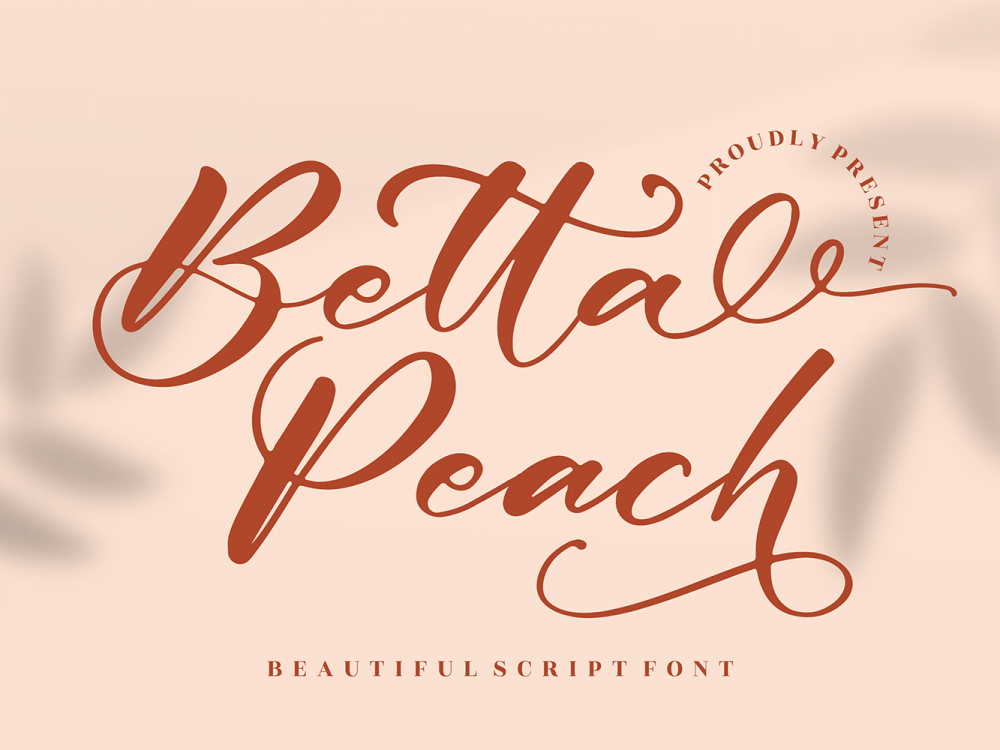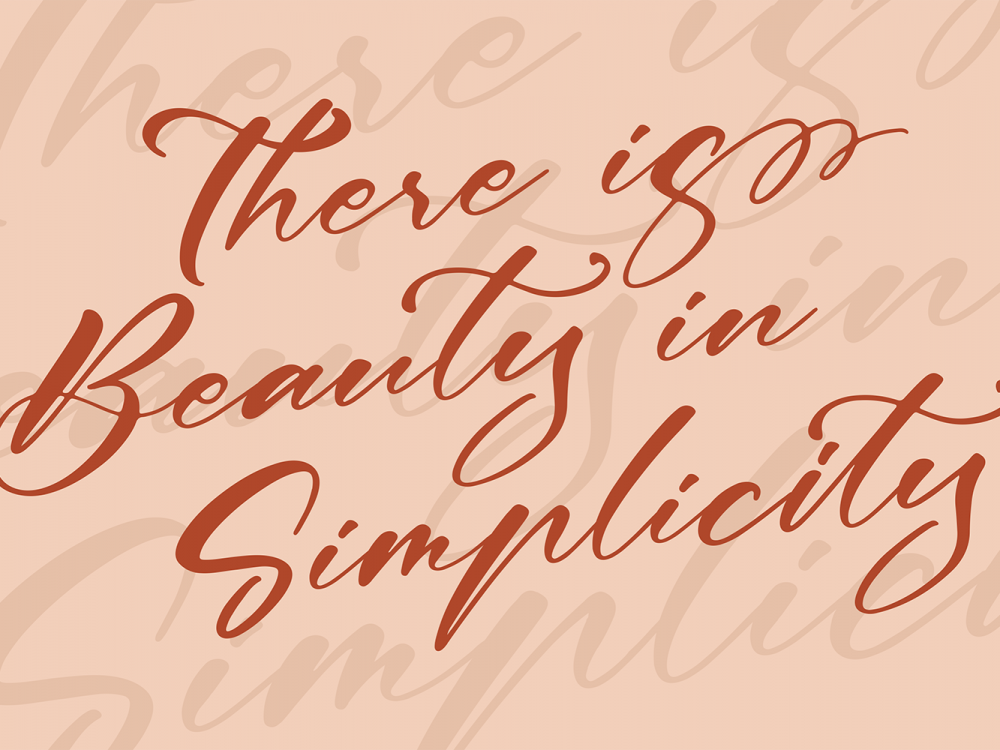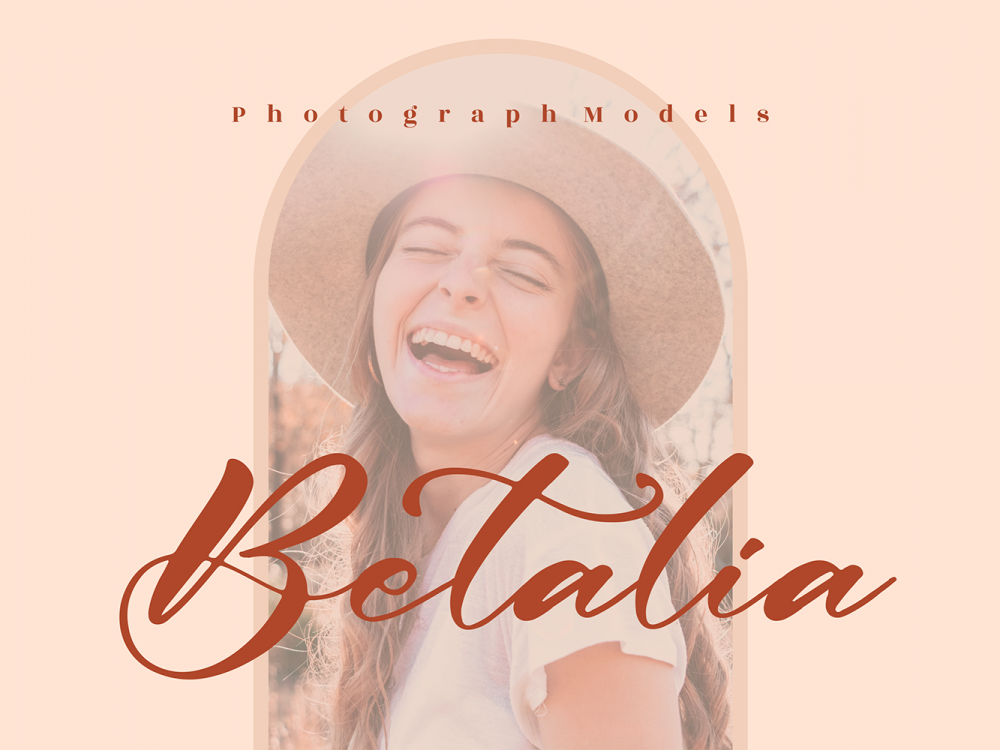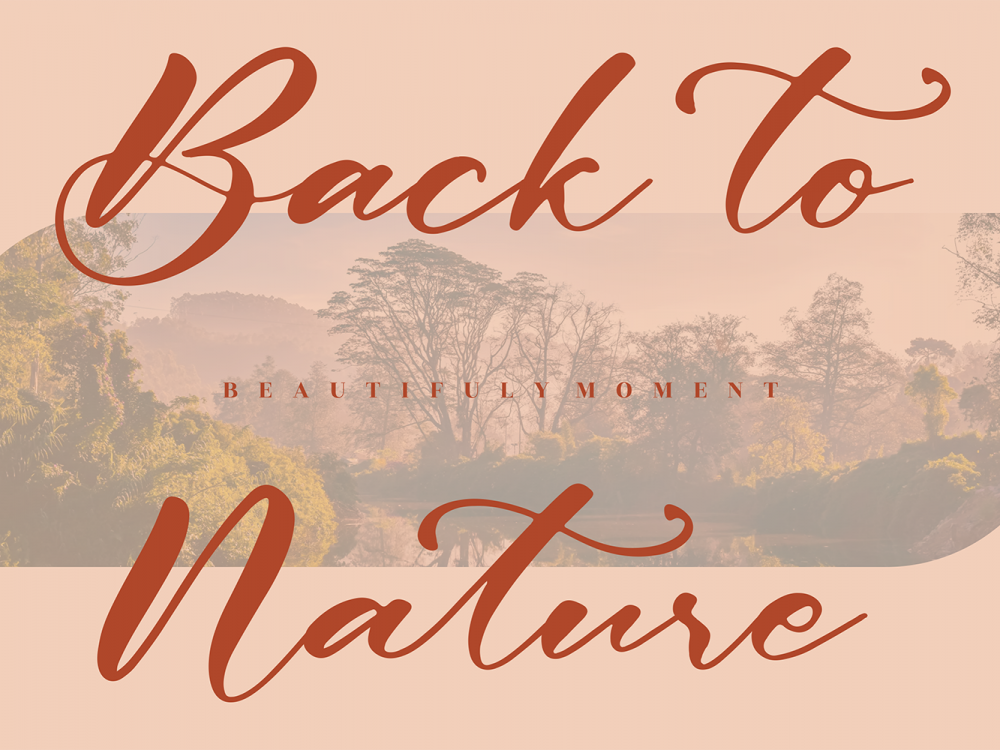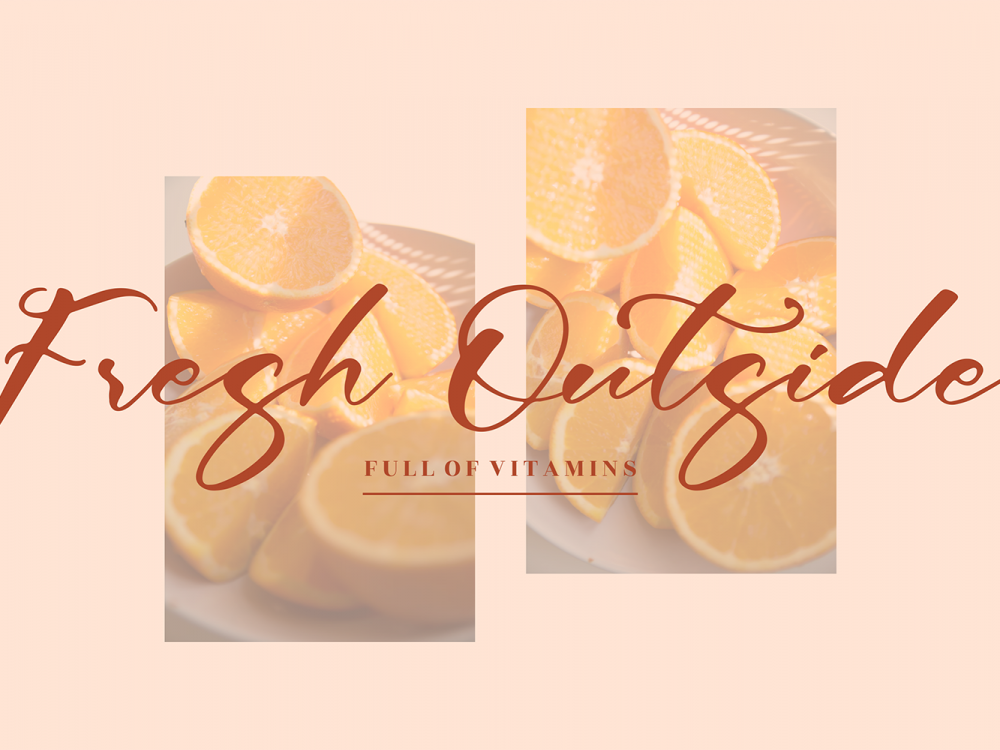
Betta Peach Free Font
Betta Peach Free Font is an interesting modern beautiful handwritten font that simulates detailed brush writing and is very suitable for creating various unique design projects that require a scripted font. These can be posters, wedding invitations, cards, branding, flyer prints, and more. If you wish to access more features and use them for commercial work please buy the full version.